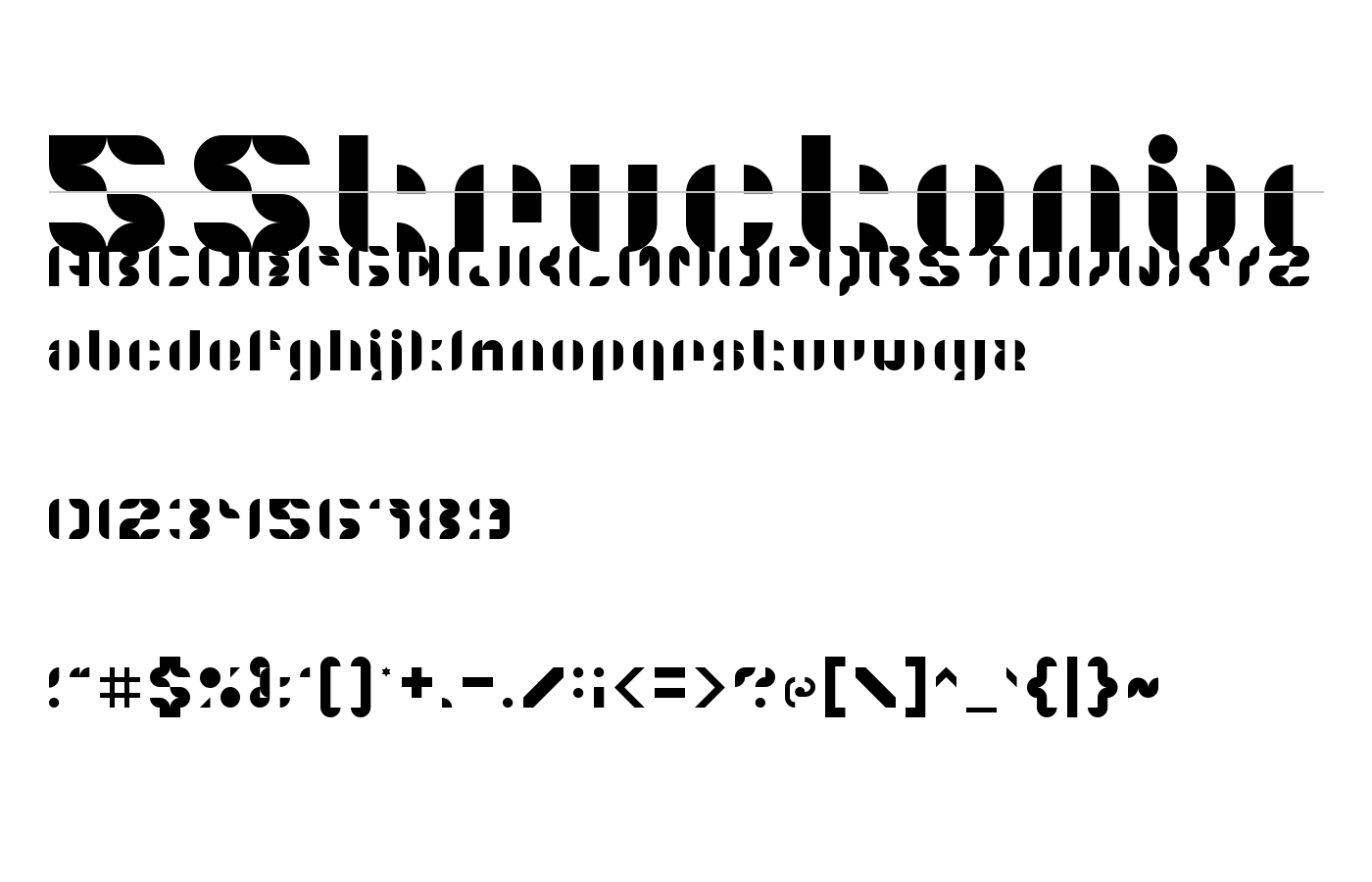
5Structonix is a bold, modern stencil-style font with strong geometric influences and high contrast between thick and thin strokes. Its unique cut-out shapes and tall, narrow letterforms lend it a futuristic and industrial feel, making it ideal for eye-catching headlines, branding, and posters where a striking, avant-garde look is desired. This font works best in display settings where its distinctive style can stand out and create a bold visual impact.
5Structonix Font
About 5Structonix Font
| Font family | 5Structonix Font |
| Designer | Noah - 10 year old typomaniac |